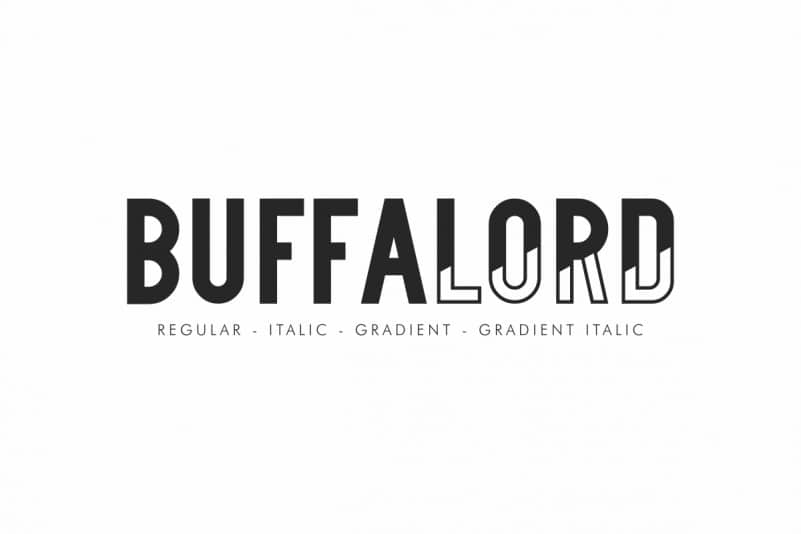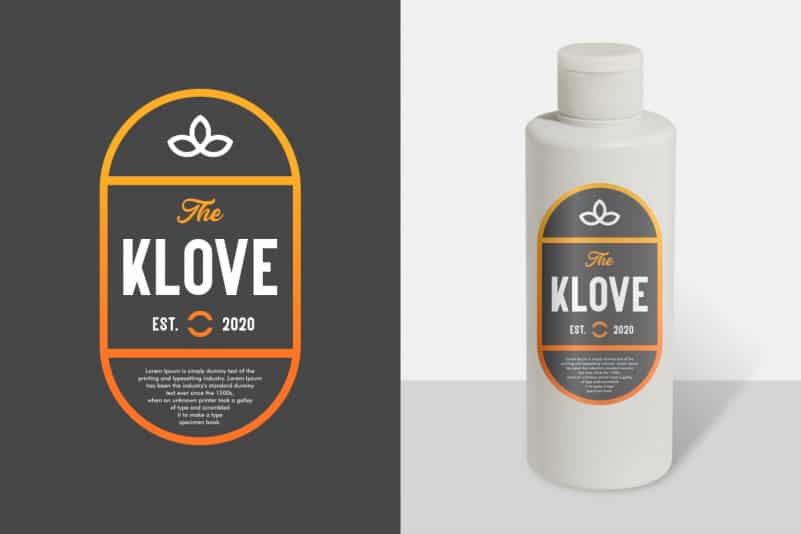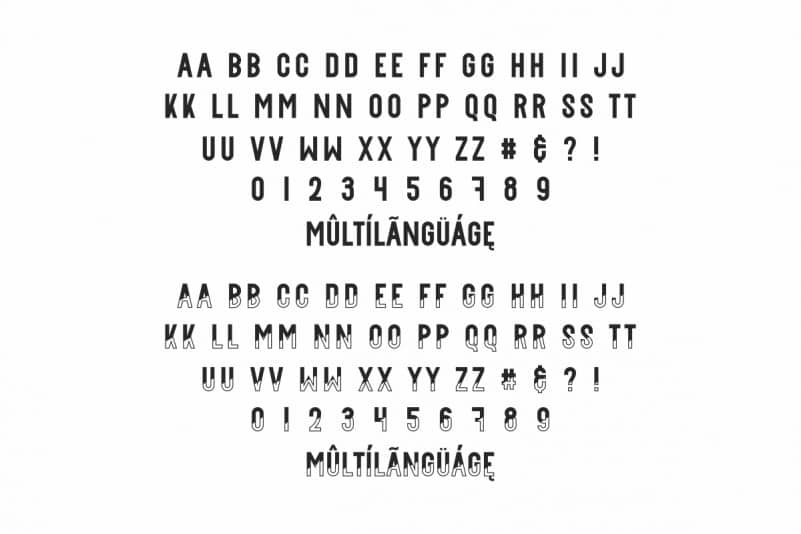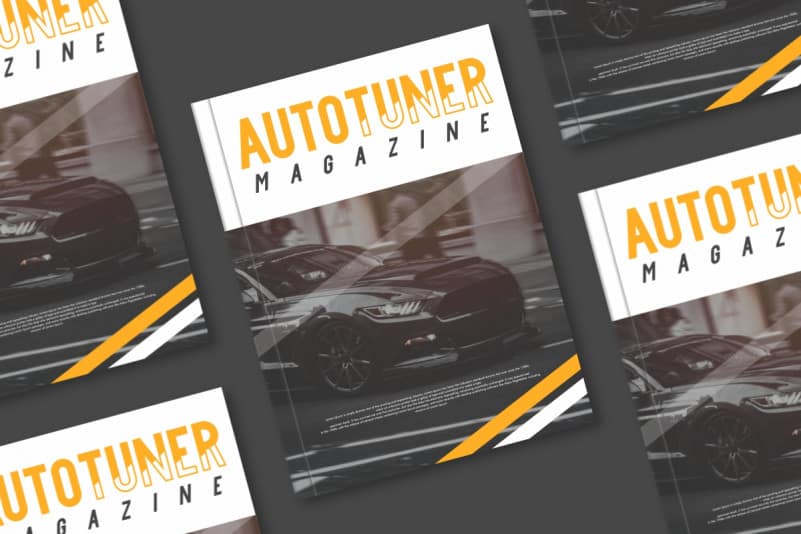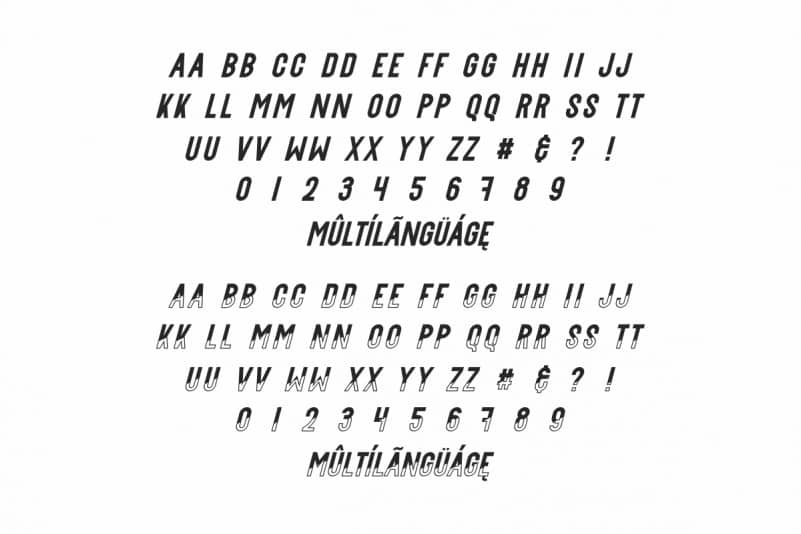
Buffalord Sans Serif Font
Buffalord Sans Serif Font will be great for any projects (require extended license) including : branding, logo, stationery, business card, signage, flyer, brochure etc.